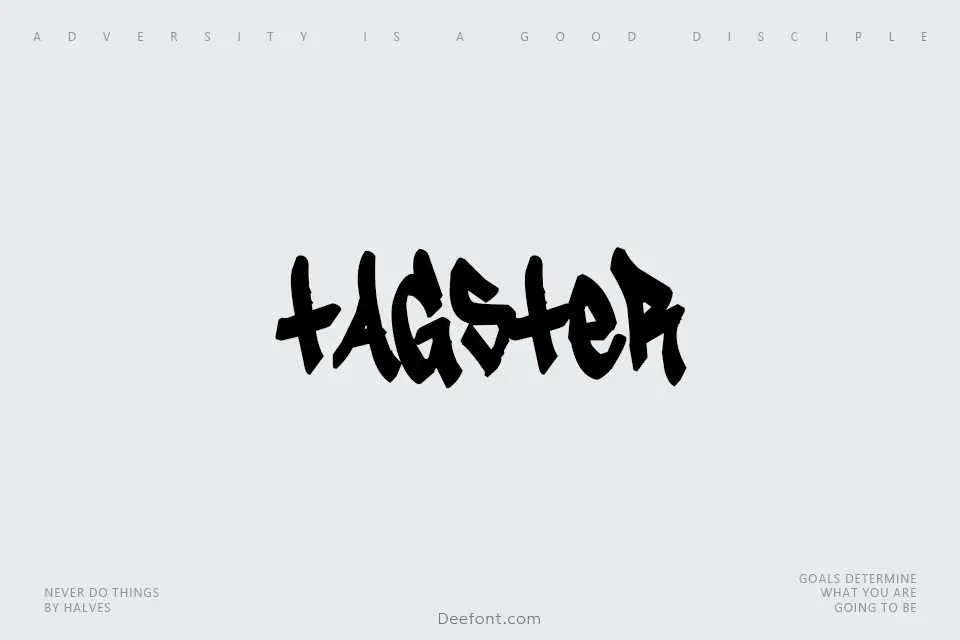
Tagster Font
The Tagster font brings graffiti-inspired, script-style flair to your designs, capturing the energetic, urban vibe of street art. Perfect for bold branding, creative posters, or standout social graphics, its dynamic strokes and handcrafted look make it a go-to choice for contemporary projects seeking vibrant personality and authenticity. With its 100% free license and accessible style, Tagster enables designers to experiment fearlessly and add expressive visual energy to any creative venture.